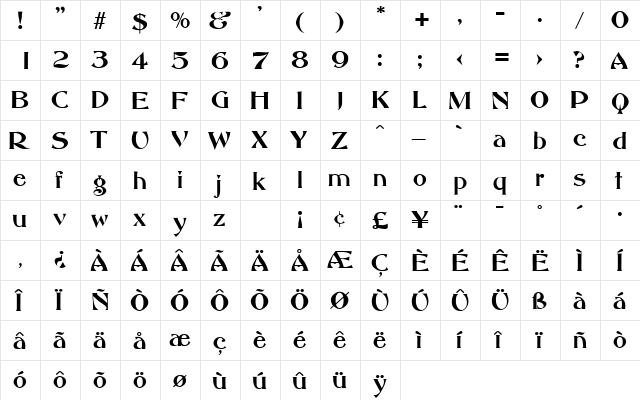
AbottOldStyle DB Regular
Design Context for AbottOldStyle DB Typeface
AbottOldStyle DB brings classic typographic sensibility to the table — its serifs and measured letterforms reflect centuries of print heritage.
Pro Tip: Set AbottOldStyle DB with slightly loose tracking in headlines to let each letterform's detail read clearly at display sizes.